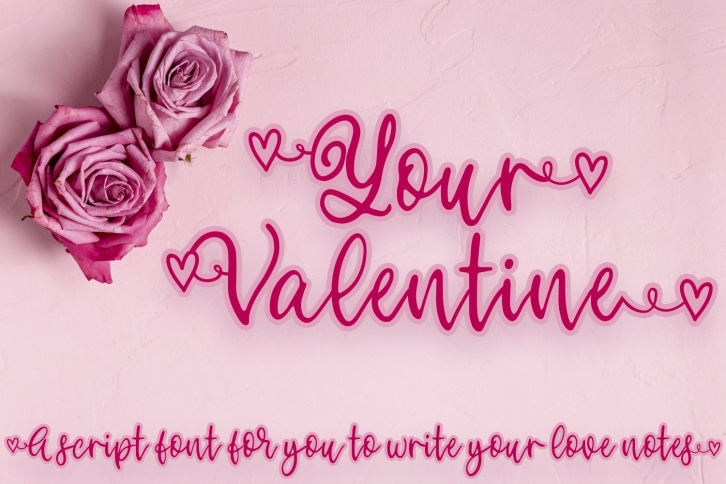
Your Valentine - A script font perfect for your love notes
Your Valentine is a script font is perfect when you want to write those cute love notes or letters. There are stylistic alternates for lower cases so you can end the word or name with a doodle heart. This font can be used for anything such as T-Shirt designs, phone cases, greeting cards, invitations, mugs and so much more! Look for your inner mermaid and be creative with it!
• Your Valentine Comes with Uppercase A-Z and lowercase a-z letters, 0-9 numbers, limited punctuation, stylistic alternates, ligatures and supports Western European Languages